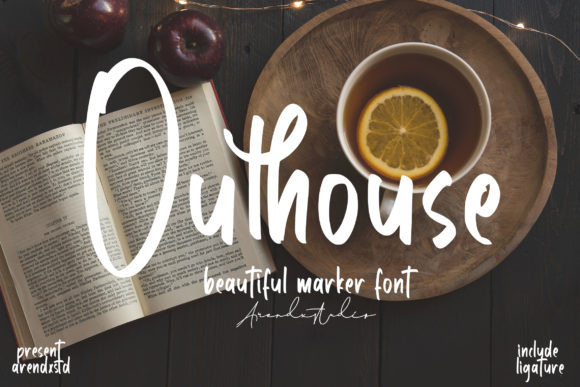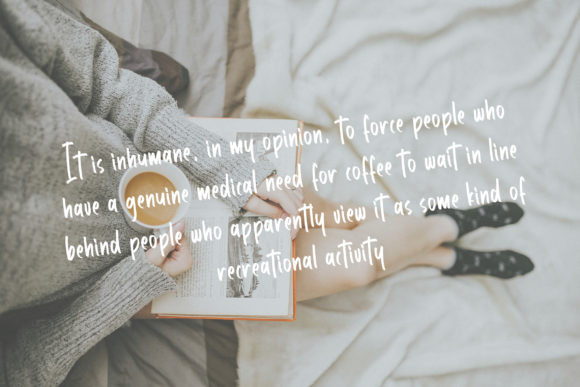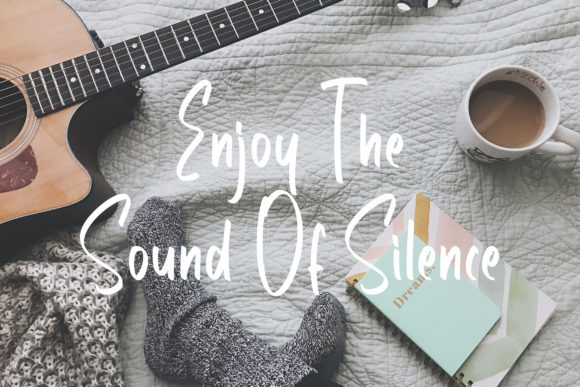
Outhouse Font
Outhouse is a lovely and timeless handwritten font. It is the best choice for creating eye catching logos, branding and quotes. Every letter has a unique and beautiful touch, which will make your design come alive!